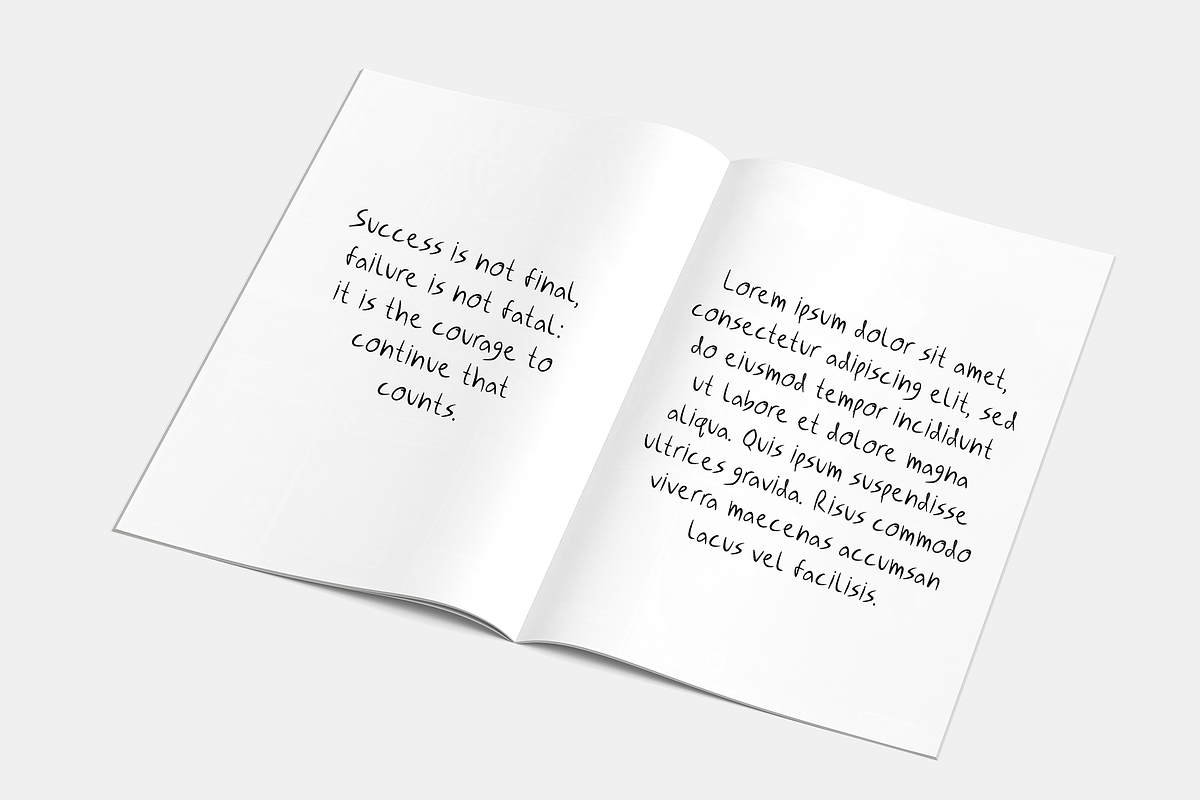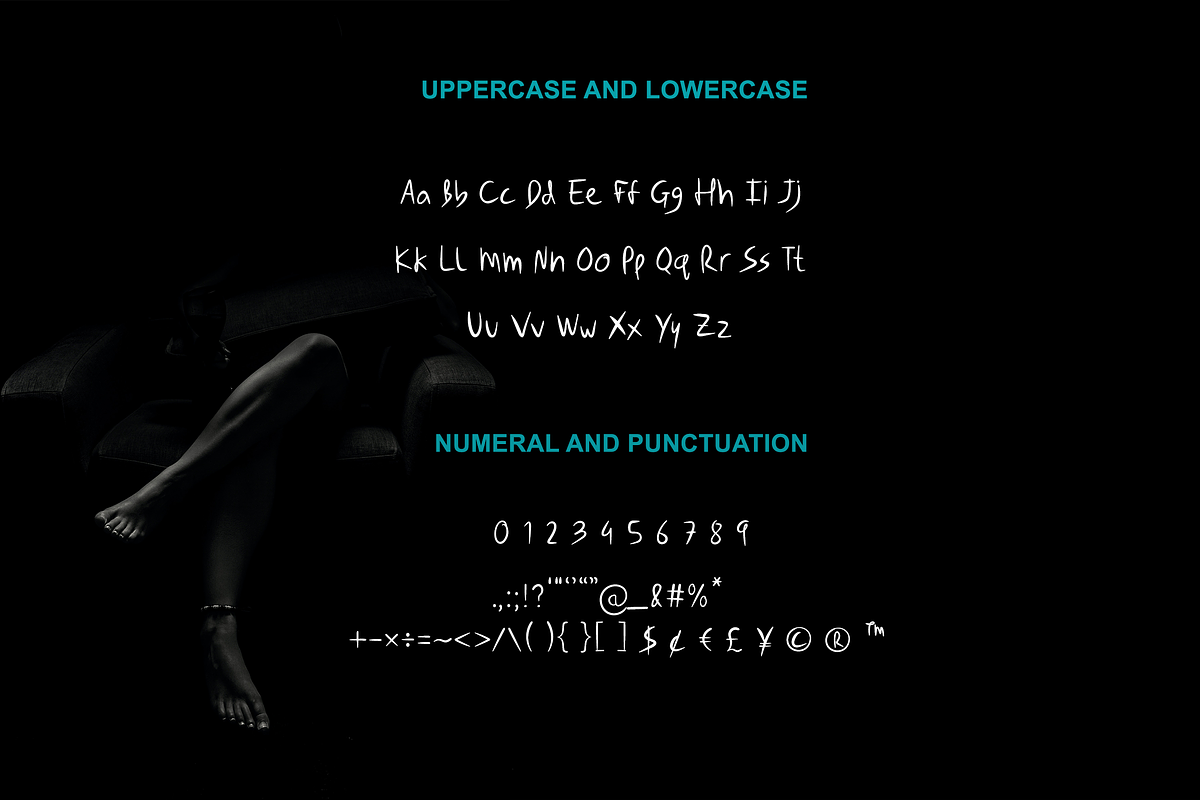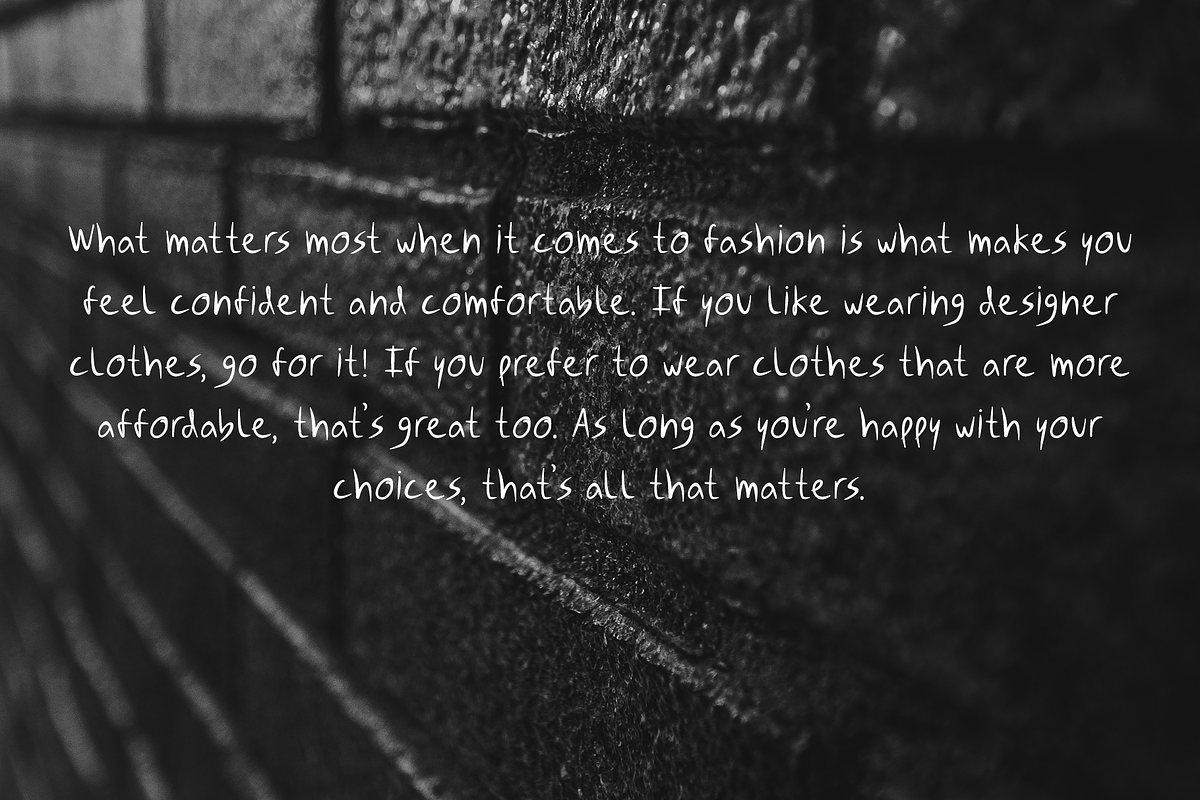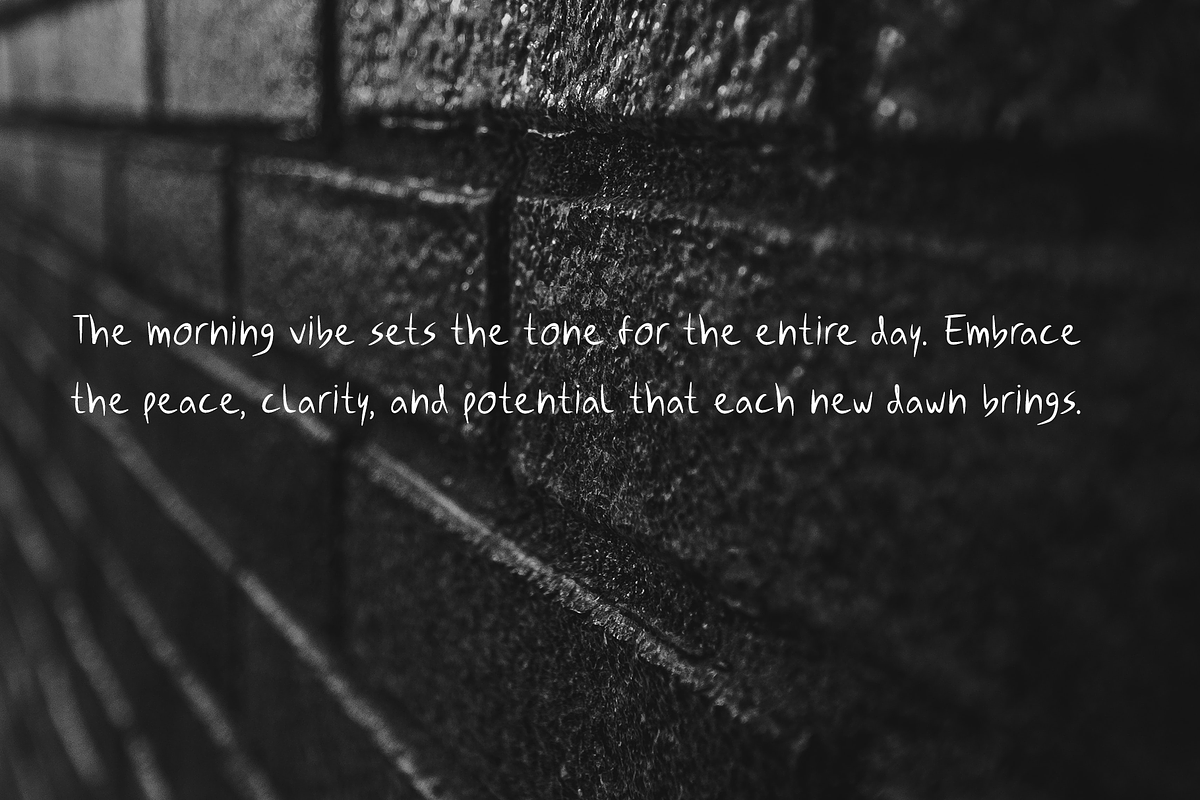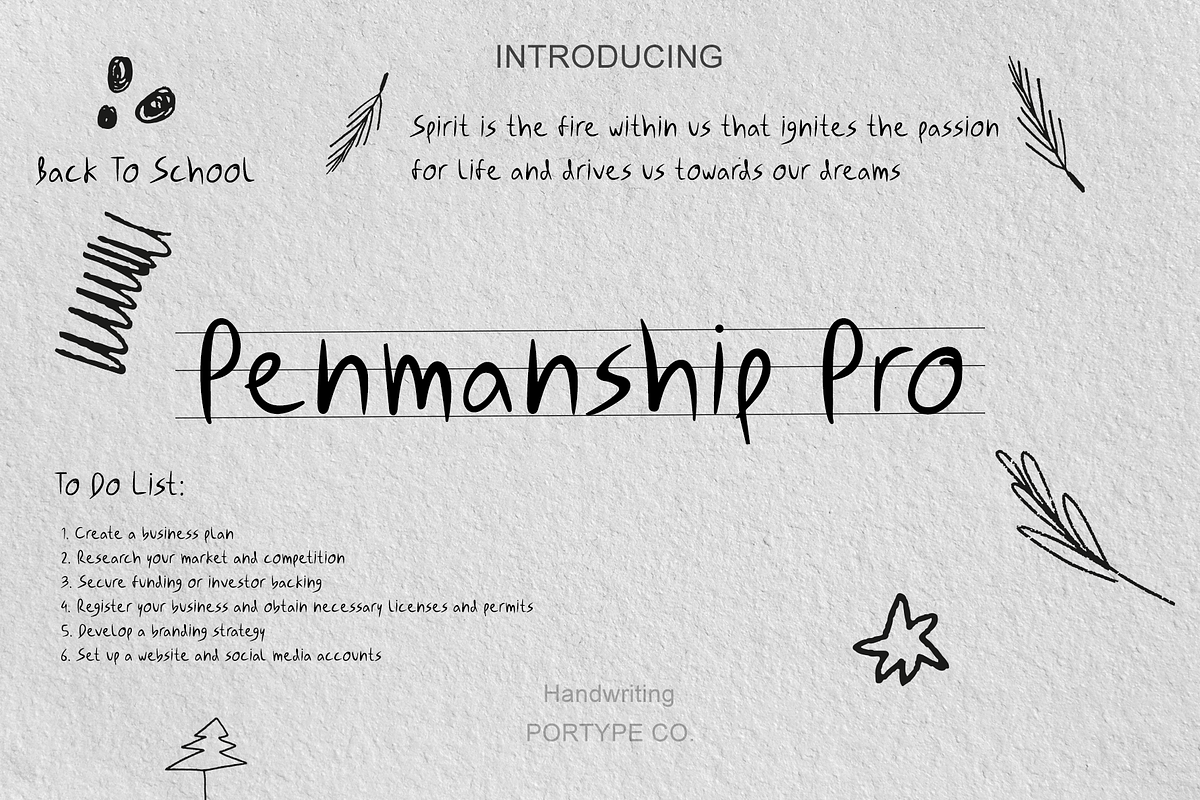
Penmanship pro
The letters in Penmanship Pro is a unique handwriting font that is designed to give a more personal touch to your digital documents. Overall, Penmanship Pro is an excellent choice for anyone looking to add a human touch to their digital documents without losing the professional look. Its easy-to-read and simple style make it ideal for both personal and professional communication, providing an authentic and natural handwriting experience that is both elegant and functional.